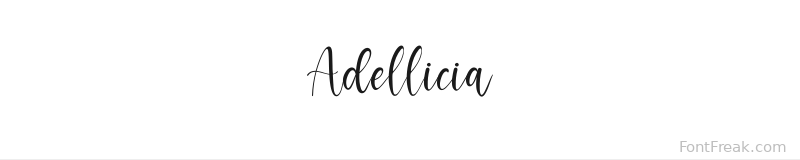
Adellicia
About Adellicia
Adellicia, designed by Kong Font, is a sophisticated handwritten script typeface that embodies elegance and charm. This font features a fluid, cursive style with varying stroke weights that add a dynamic quality to its overall appearance. The contrast between thick and thin lines creates visual interest, while the generous spacing between letters enhances readability, making it suitable for a variety of design contexts. Adellicia is adorned with subtle decorative elements, which contribute to its artistic flair, making it a standout choice for projects that require a personal touch.
This versatile typeface is particularly well-suited for wedding invitations, where its romantic curves can set the perfect tone for a special day. It also shines in creating eye-catching movie posters, adding a dramatic flair that captures attention. Restaurant menus benefit from Adellicia's warm and inviting style, making the dining experience feel more personal and engaging. Additionally, this font is an excellent choice for social media graphics, allowing content creators to convey a sense of style and creativity in their posts.
What sets Adellicia apart is its perfect balance of elegance and approachability. Its handwritten style brings a human touch to digital spaces, making any project feel more intimate and inviting. Whether you are designing for a wedding, a cafe, or online content, the Adellicia font free download is an excellent addition to your creative toolkit.